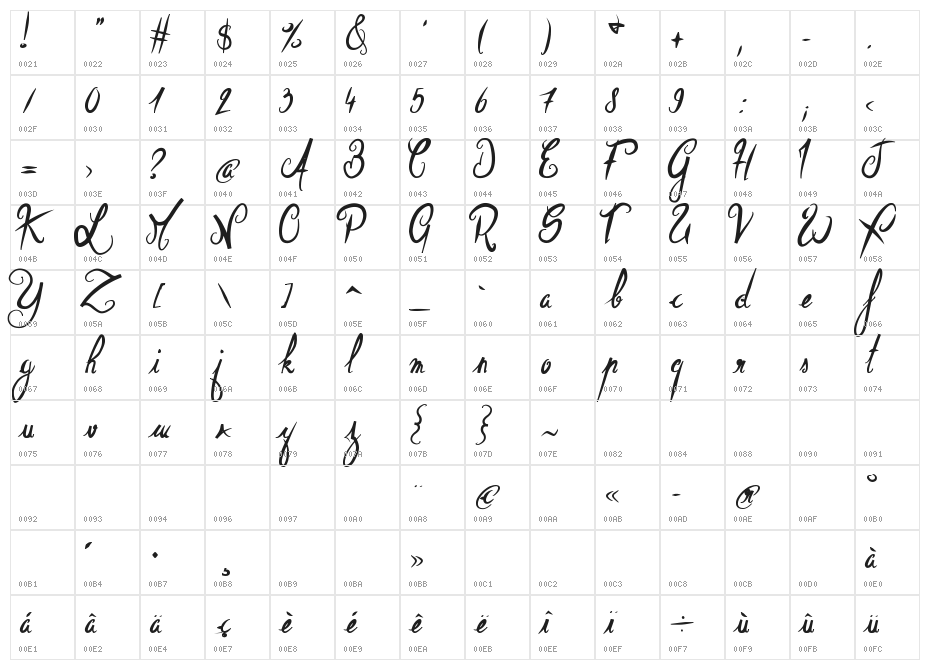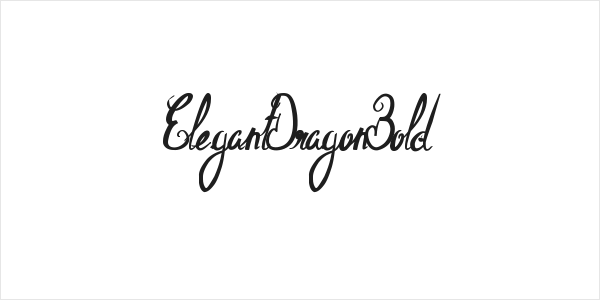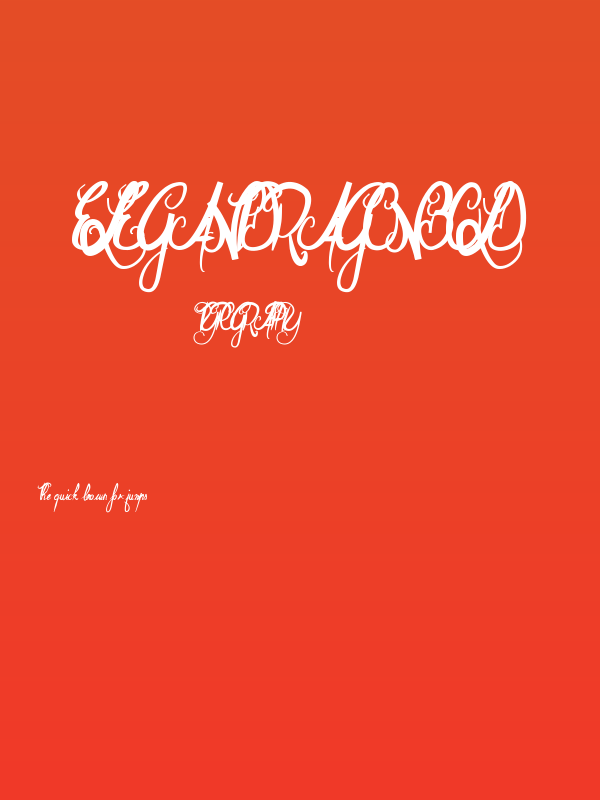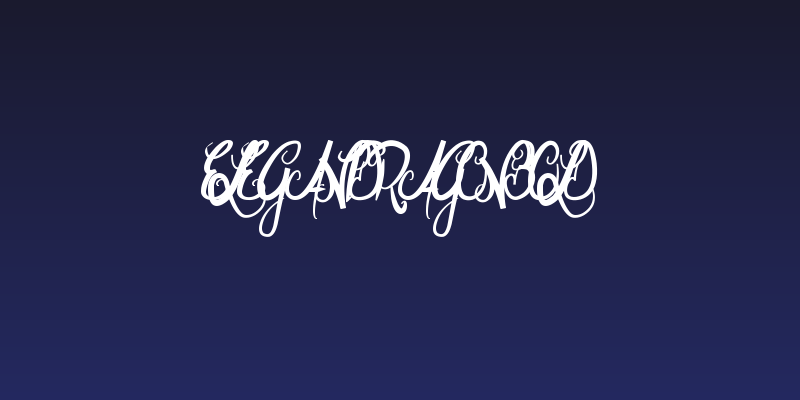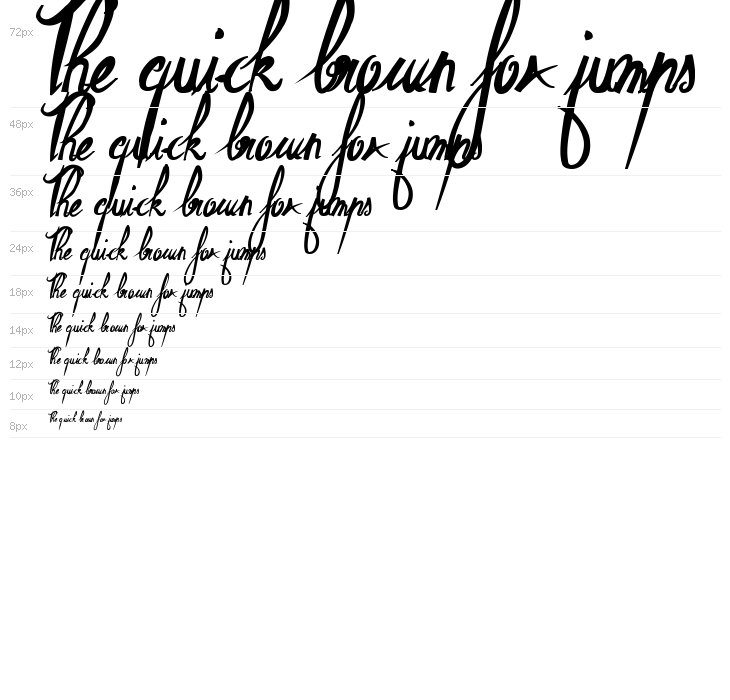
ElegantDragonBold Font
ElegantDragonBold Description
This font exudes a sense of elegance and boldness, characterized by its flowing, cursive style with intricate swirls and loops. The uppercase letters are particularly ornate, featuring elaborate flourishes that give a sense of grandeur and sophistication. The lowercase letters maintain a consistent cursive flow, complementing the uppercase with a slightly more restrained design. Numbers and special characters are designed to match the overall aesthetic, ensuring a cohesive look across all text. The font's bold weight adds to its striking appearance, making it ideal for making a statement.